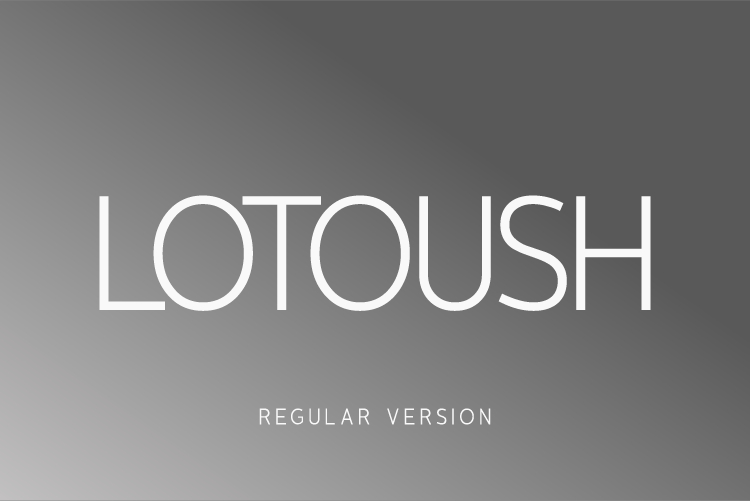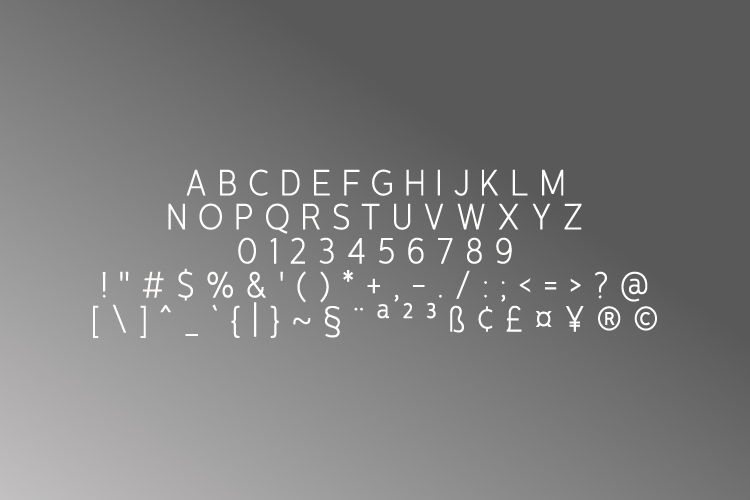
Lotoush Regular Font
About Lotoush Regular Font
Lotoush is a smooth sans serif font. It will complement any design need perfectly with its perfectly balanced mix of the smooth and sharp!